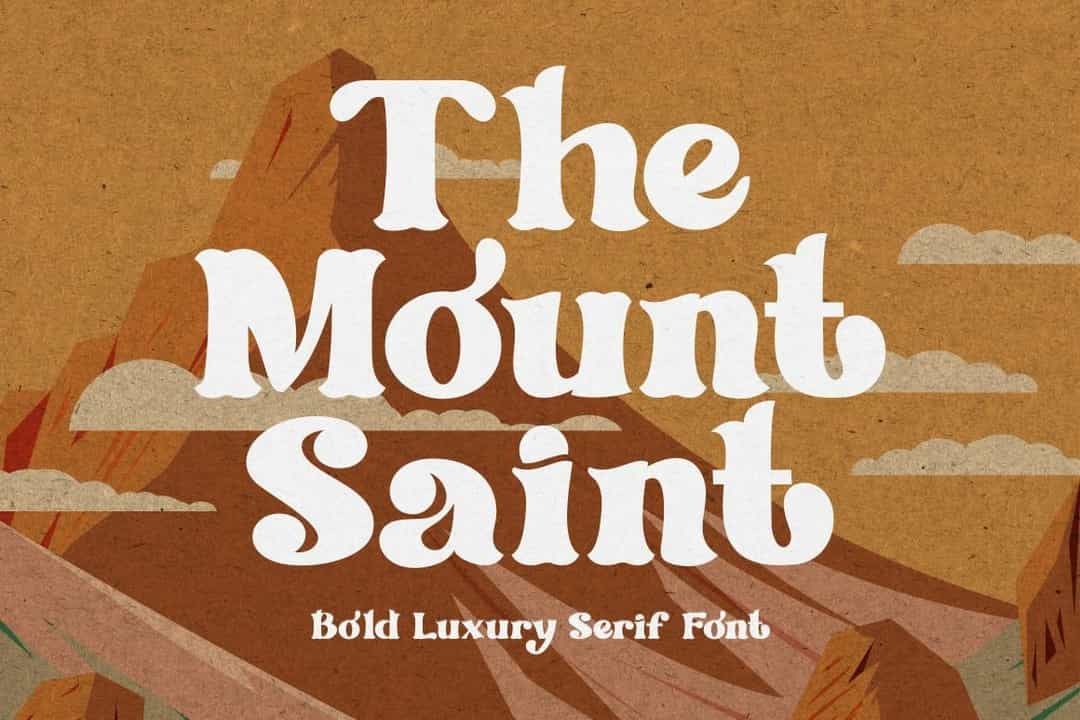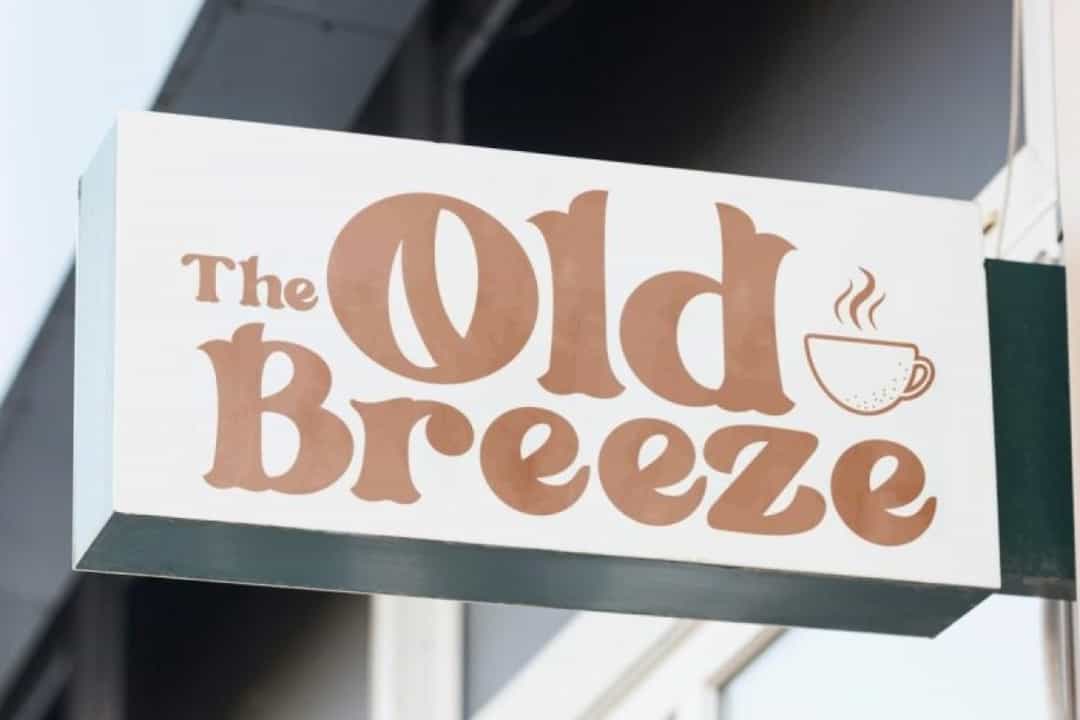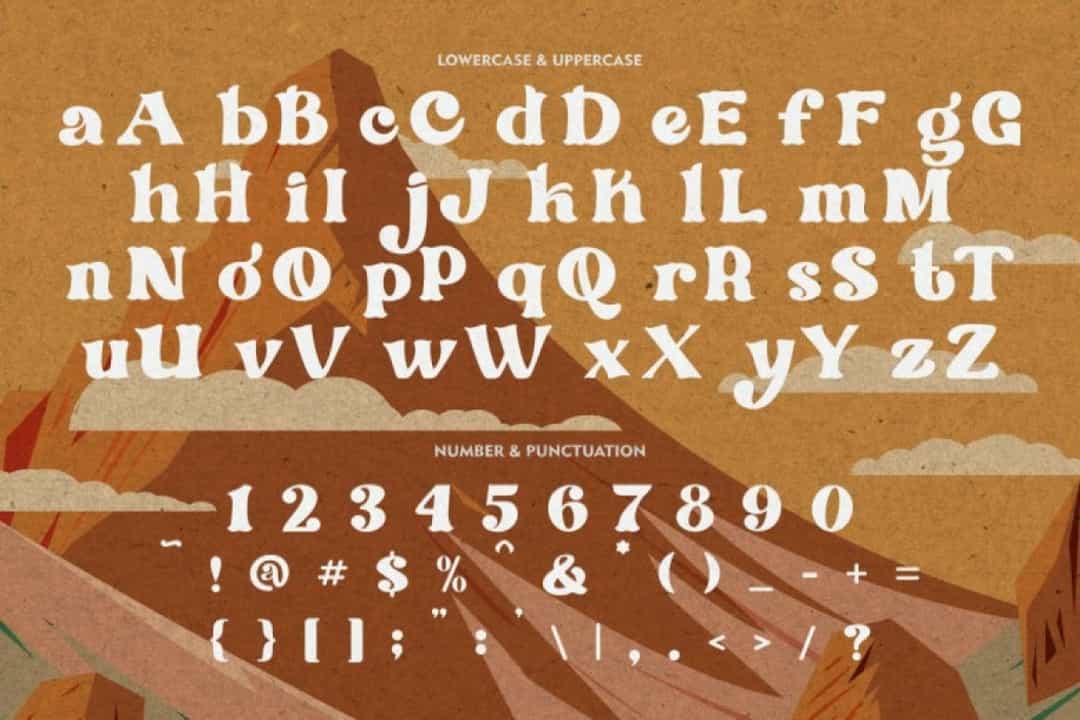
Mount Saint is an eye-catching vintage serif font with soft yet bold characteristics, featuring Swash, Titling, Stylistic alternates as well as Standard and optional Ligatures for additional functionality.